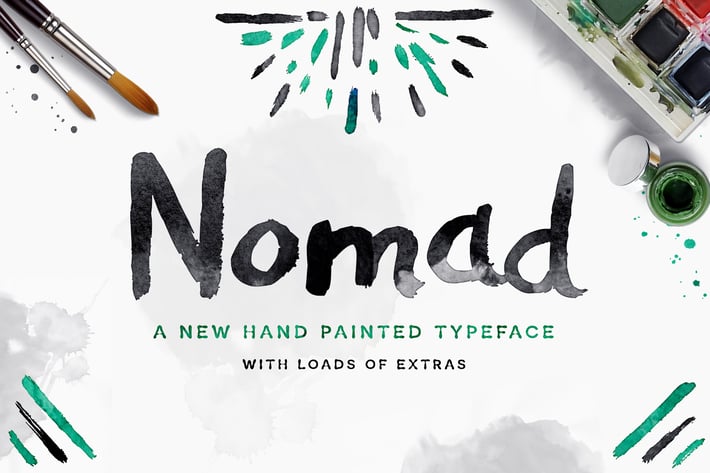
Nomad Font
ABOUT NOMAD: ::::::::::::::::::::::::::::::::::::::::::::::::::::::::::::::::::::::::::::::::::::
Nomad is a no-nonsense hand-painted font with tons of extras! It’s slightly imperfect baseline and roughened brush strokes give it a fun and stylish aesthetic perfect for typography, branding, logo design, invitations, and prints. It’s unrefined. It's dangerous. It’s imperfectly perfect!
Use it in ink, watercolor, or gold foil based designs or on its own as a bold hand-painted masterpiece!
THE EXTRAS::::::::::::::::::::::::::::::::::::::::::::::::::::::::::::::::::::::::::::::::::::::::::
Wanting to make sure you had everything you needed to make your project complete with that handcrafted feel, I’ve included:
• 75 Bonus Glyphs
Add these to your prints, invites, typography, etc. and give it that organic hand-painted feel.